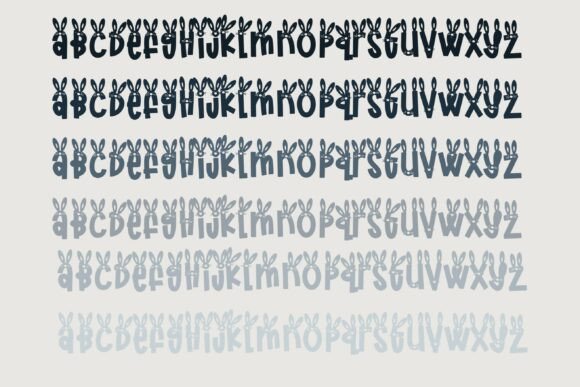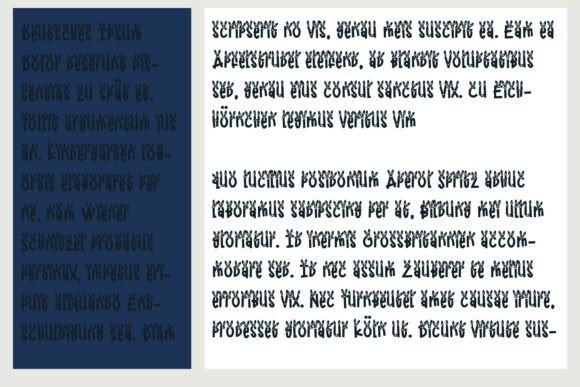
Bootleg Bunny Font
This hand-crafted font is a whimsical sans serif with bunny ears and faces.A hand-crafted font is a font that is designed to look like it was written by hand. It is often used for invitations, greeting cards, and other items. Handwritten fonts can be either formal or informal, and they can be used for a variety of purposes.